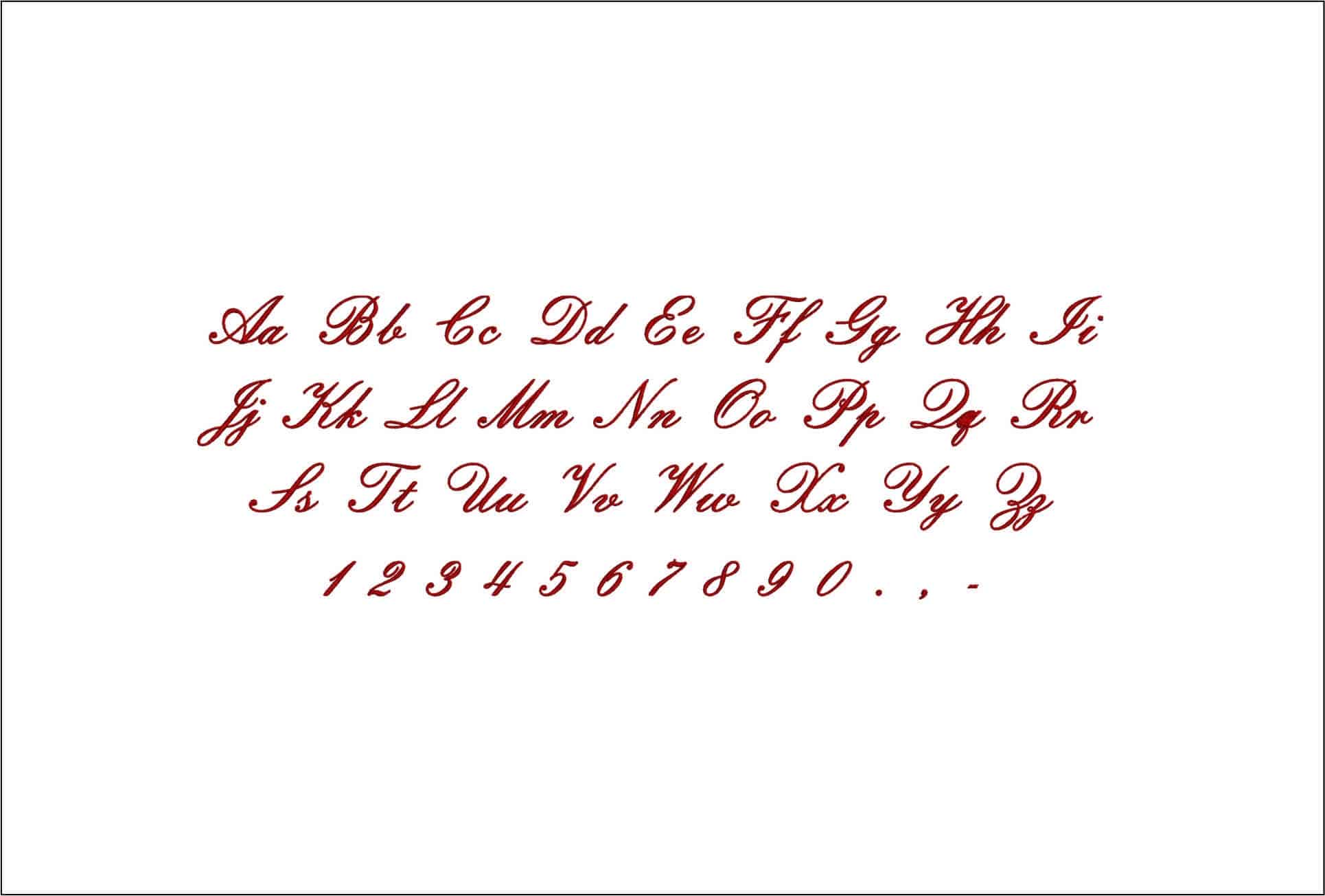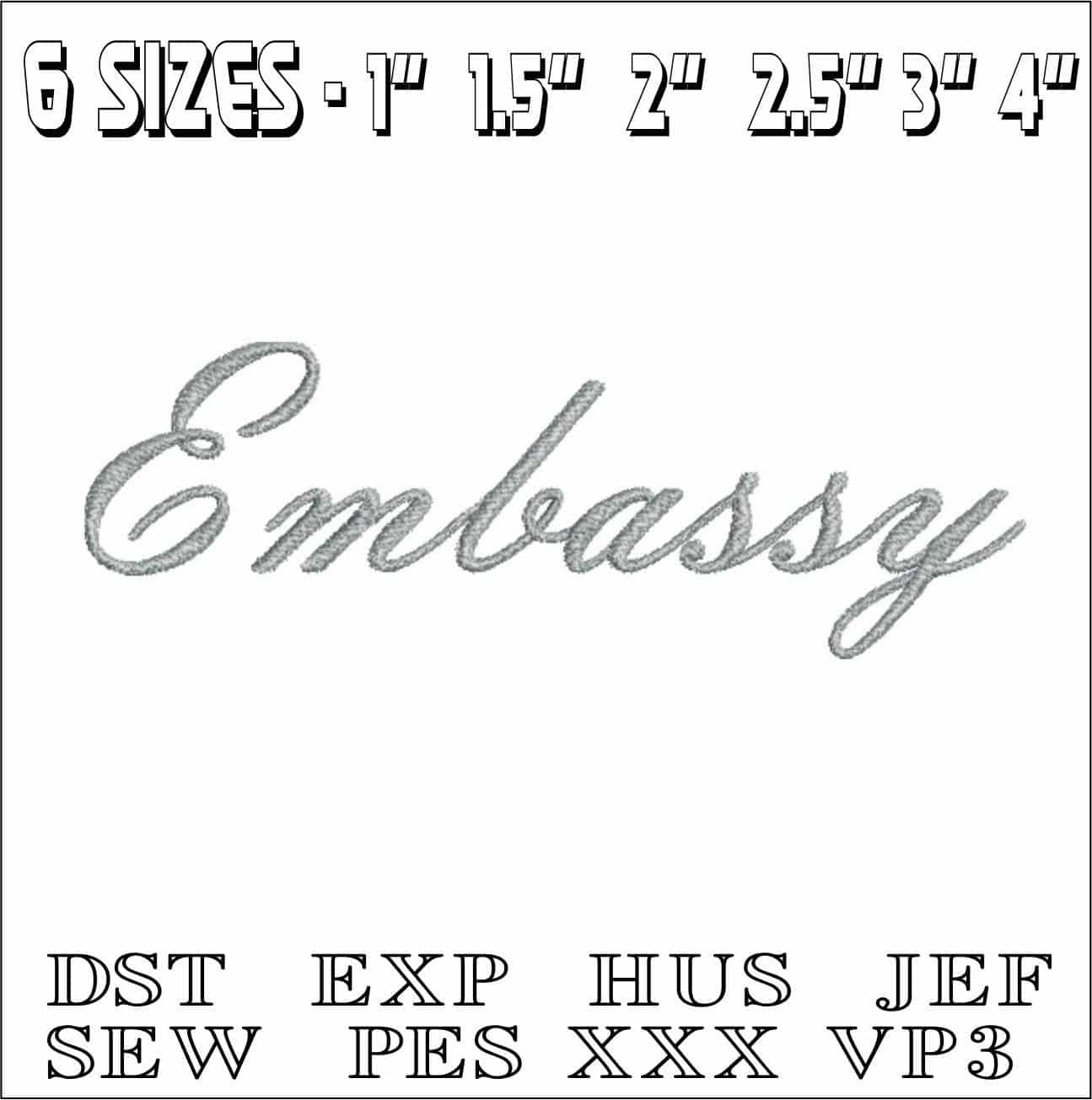
An elegant cursive embroidery font with flowing swashes, made for polished names, monograms and personalised stitching that looks soft and refined.
Add polished script to robes, wedding linens and boutique gifts with the Embassy font set, an elegant cursive alphabet with flowing strokes and looped swashes. The sample shows upper and lower case letters, numbers and punctuation in a graceful hand that feels formal without turning stiff. It suits anyone personalising initials, names or short phrases where you want a softer, more refined look than a block alphabet.
This style works especially well on towel bands, pillowcases, napkins, dressing gowns, shirt cuffs and baby blankets. The connected lettering gives words a smooth, handwritten rhythm, while the clear letterforms help names stay readable rather than fussy. Used on plain cotton, linen or stable knit garments, it brings a neat monogrammed finish with a distinctly classic feel.